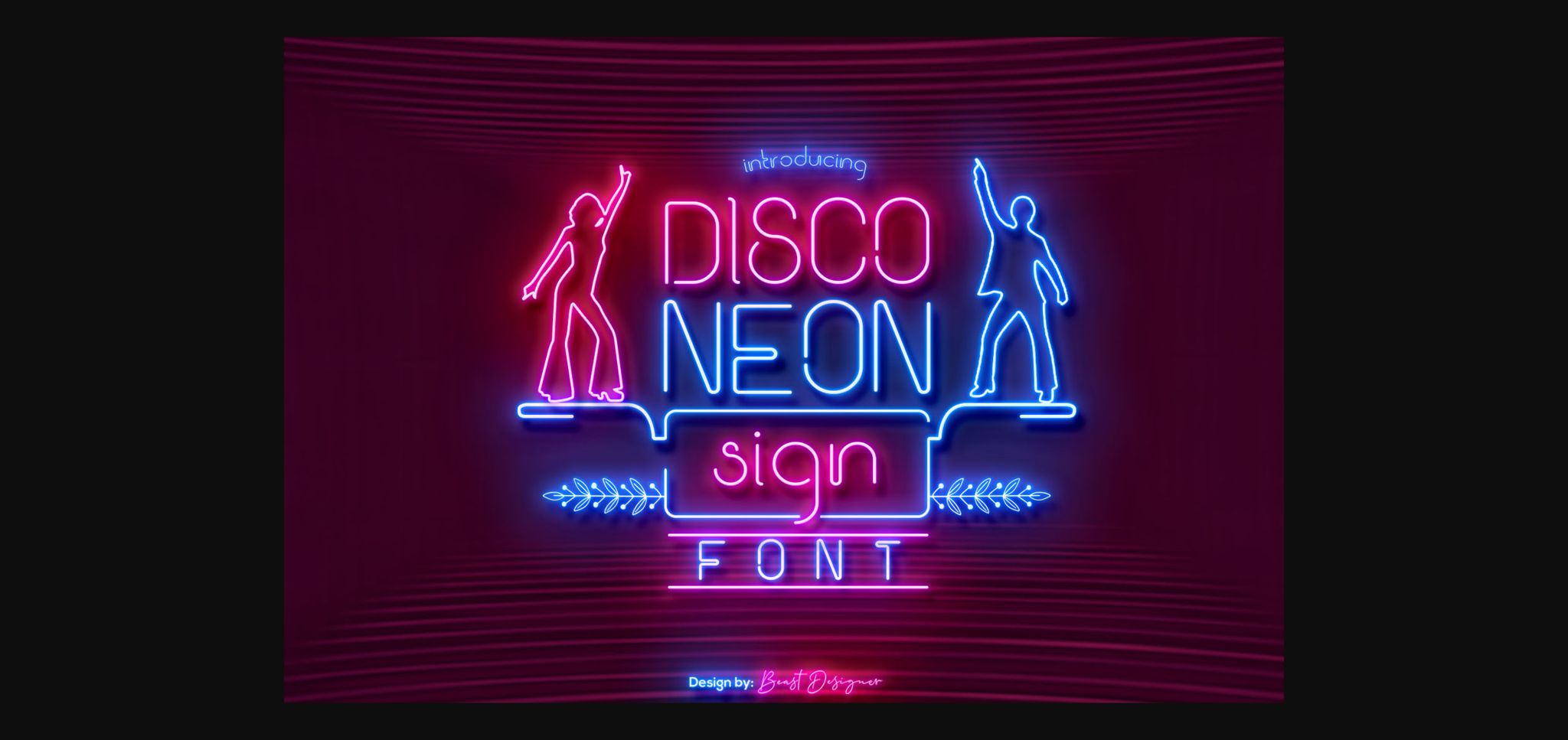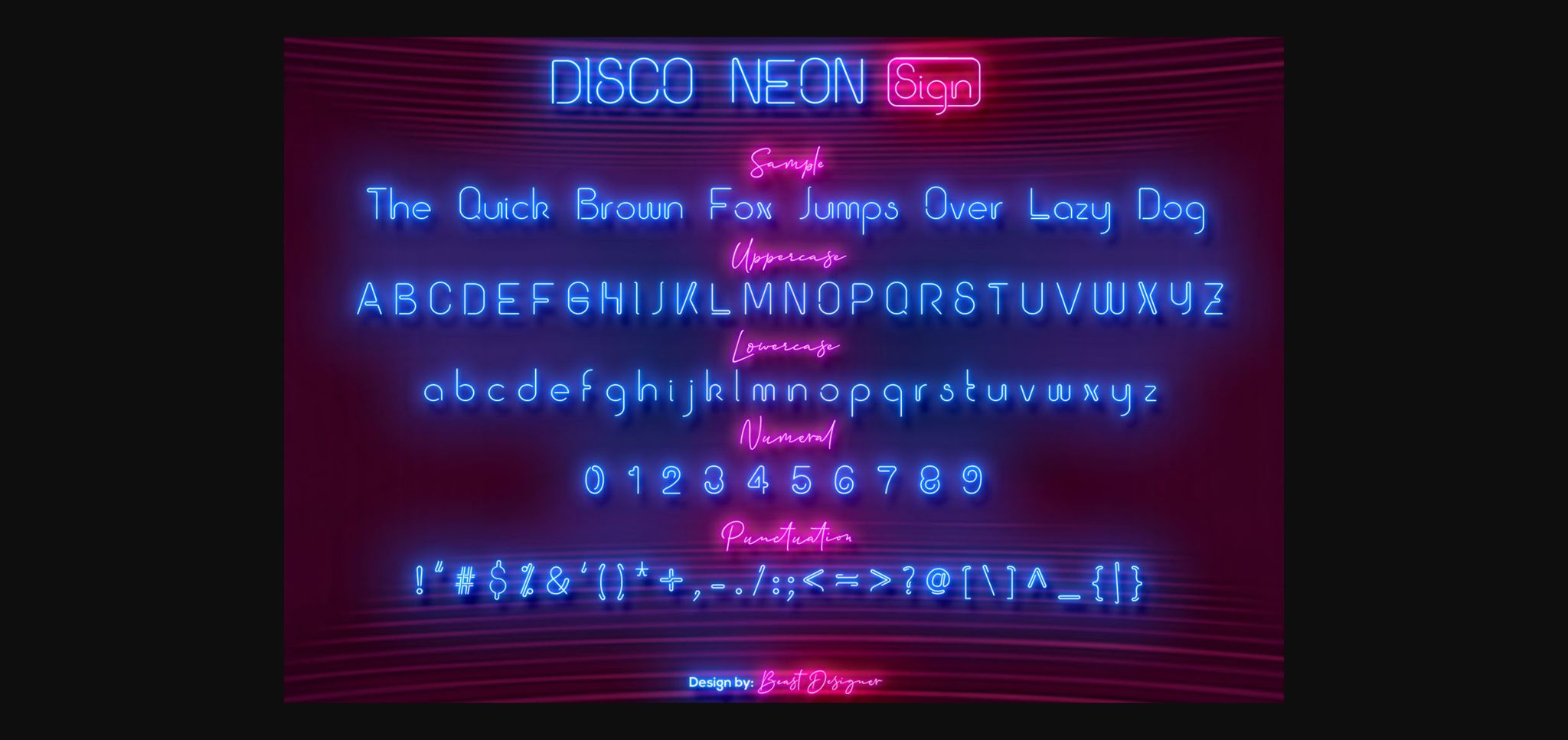
HomeSans Serif FontsDisco Neon Sign Font Sans Serif Fonts Disco Neon Sign Font FacebookXPinterestWhatsApp 1 of 4 ... Disco Neon Sign Font Poster 2... Disco Neon Sign Font Poster 3... Disco Neon Sign Font Poster 4... About Disco Neon Sign Font Disco Neon Sign is a nostalgic sans serif font. Carefully handcrafted to become your favorite, this font will elevate each of your design ideas. DOWNLOAD NOW People also explored Milesbingo Font Kaylonick Font Planner Lining Font Christmas Surprise Font Techpixs Font Uncle House Font Berbudaya Font Maunaloa Font Cyrilla Font 531 0 TagsDisco Neon Sign Font Previous articleStonedance Elissta FontNext articleReplance Font LEAVE A REPLY Cancel reply Comment: Please enter your comment! Name:* Please enter your name here Email:* You have entered an incorrect email address! Please enter your email address here Website: Save my name, email, and website in this browser for the next time I comment. Personal Use Free Zephan Personal Use Free Read more about this font Bonifaciy Personal Use Free Read more about this font Indonesia Dermawan Personal Use Free Read more about this font Vanilla Whale Personal Use Free Read more about this font BLOG Top 10 Handwritten Fonts That Elevate Your Designs Top 10 Handwritten Fonts That Will Elevate Your Designs Handwritten fonts bring a warm, personal touch to every creative project. Whether you're designing logos, invitations,... To increase your work productivity, choose the most readable fonts. Exploring Font Trends Transform Your Website: Elevate Your Typography with 7 Best Web Font Generators